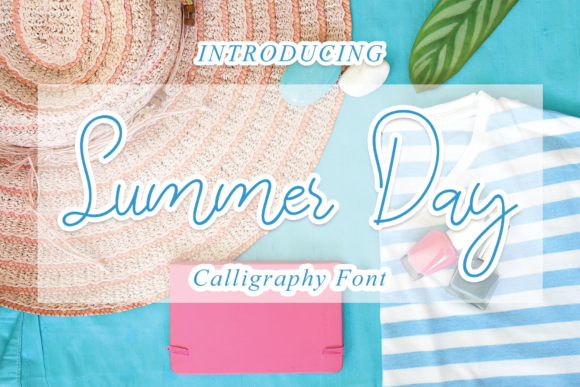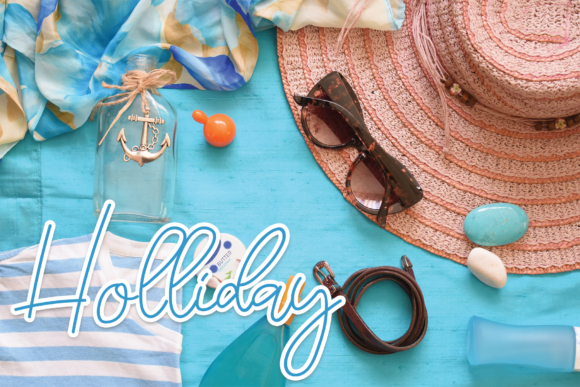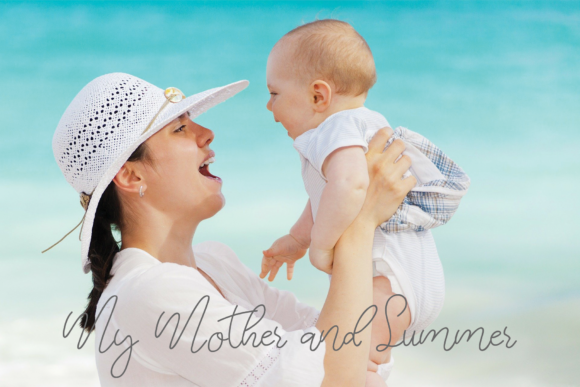
About Summer Day Font
Summer Day is a delightful and whimsical handwritten font that brings a touch of charm and playfulness to your designs. With its thin and floral letterforms, this font exudes a sense of elegance and grace. The cursive and stylish sets of Summer Day offer a wide range of creative possibilities, allowing you to instantly create beautifully handcrafted typography.
The delicate strokes and intricate details of Summer Day give it a unique and organic feel. Each letter is adorned with floral elements, adding a touch of nature and beauty to your typography. The font captures the essence of a warm and sunny day, evoking feelings of joy, relaxation, and creativity.
With Summer Day, you can effortlessly create eye-catching designs that stand out. The thin letterforms lend a sense of delicacy and sophistication, making the font suitable for a variety of projects. Whether you’re designing greeting cards, invitations, logos, or social media posts, Summer Day adds a touch of whimsy and personality.
The cursive nature of Summer Day adds a sense of flow and movement to your typography. It allows you to create beautiful and fluid letter connections, enhancing the overall visual appeal of your designs. The font’s stylish sets provide additional variations and decorative elements that can be used to further customize your typography.
One of the standout features of Summer Day is its versatility. It can be used in both playful and elegant designs, depending on the context and styling choices. The font pairs well with other typefaces, allowing you to create harmonious and visually appealing compositions.
Whether you’re designing for a wedding, a special event, or simply want to add a touch of whimsy to your everyday designs, Summer Day is a fantastic choice. Its floral and thin letterforms bring a sense of joy and creativity to your projects, making them memorable and visually appealing.
In summary, Summer Day is a cute and stylish handwritten font that combines thin letterforms with floral elements to create a whimsical and charming aesthetic. Its cursive and stylish sets offer a range of creative possibilities, allowing you to craft beautifully handcrafted typography. Whether you’re designing greeting cards, invitations, logos, or social media posts, Summer Day adds a touch of elegance and playfulness to your designs.